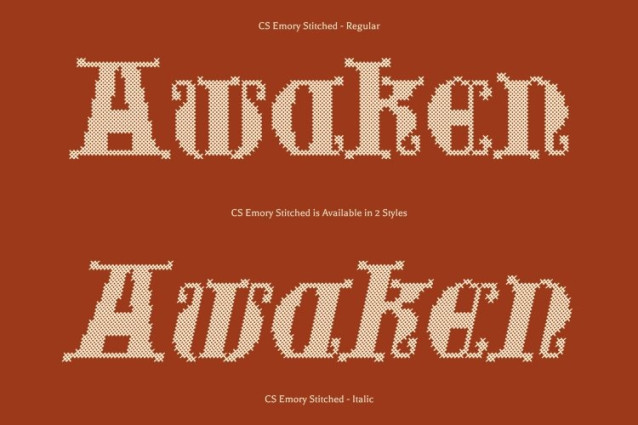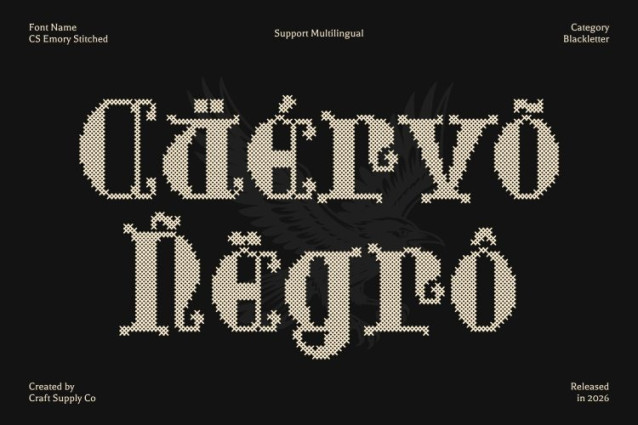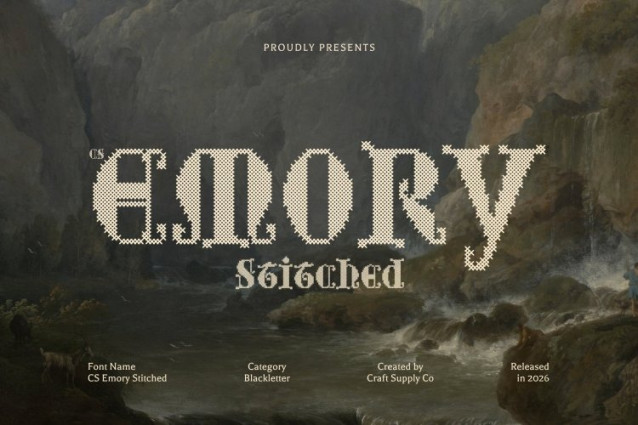
CS Emory Stitched Font
CS Emory Stitched Font – This is a bold display font that fuses the historic elegance of uncial script with Gothic intricacy, now reimagined in a stitched style. The cross-shaped embroidered pattern gives each letter a textured, handcrafted feel, creating a warm, personal, and nostalgic impression reminiscent of classic fabric embroidery.
Rounded Letterforms with Artistic Detail
The font’s smooth, rounded shapes are enriched with Gothic-inspired details, producing a balanced blend of softness and strength. Its structured, embossed texture adds a distinctive personality, making the letters feel tactile, crafted, and full of character.
Perfect for Medieval, Fantasy, and Storytelling Themes
Evoking the charm of medieval manuscripts, this is ideal for projects with historical, fantasy, or mythological contexts. Its decorative, stitched style enhances book covers, posters, and themed branding, infusing every design with cultural depth and storytelling elegance.
Warm, Versatile, and Distinctive
Beyond historical applications, this font adapts beautifully to modern uses. From event invitations and packaging to digital design and fashion branding, its handcrafted texture and nostalgic style provide a warm, personal, and visually striking aesthetic.